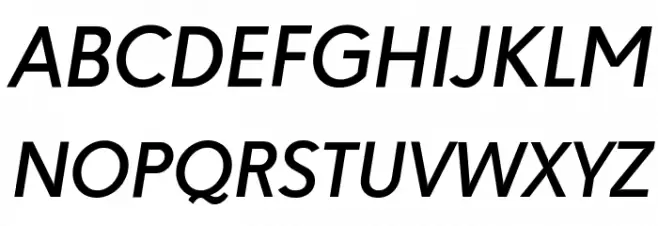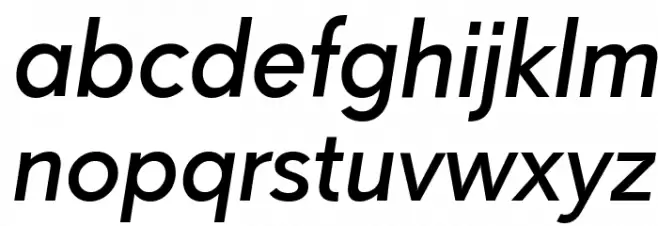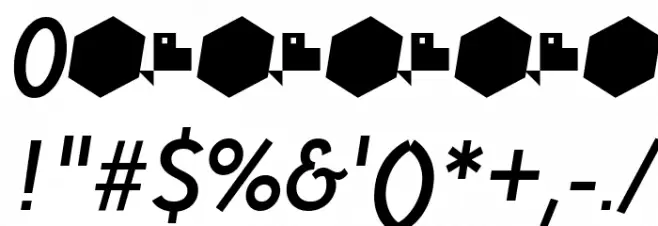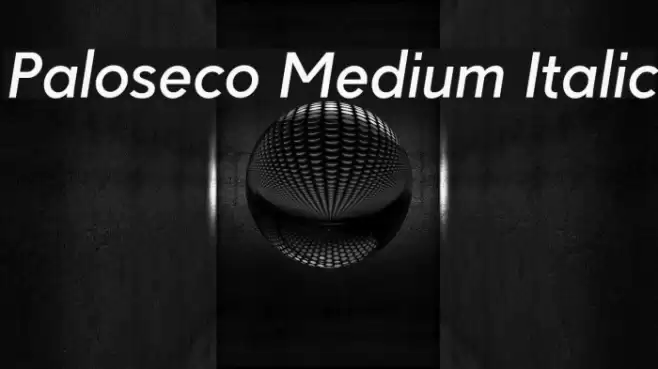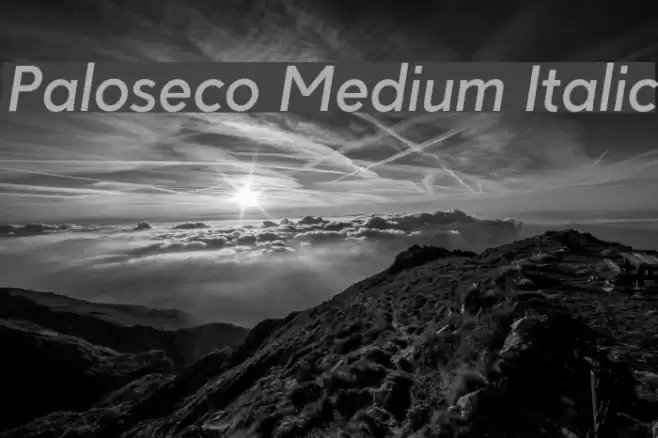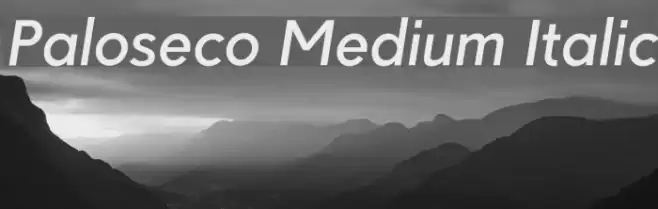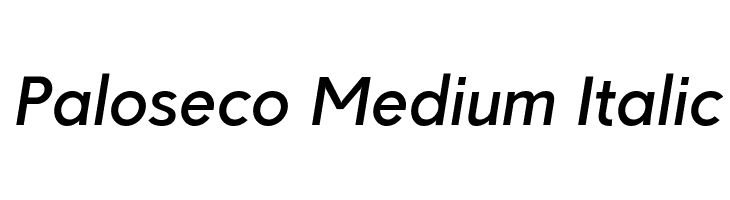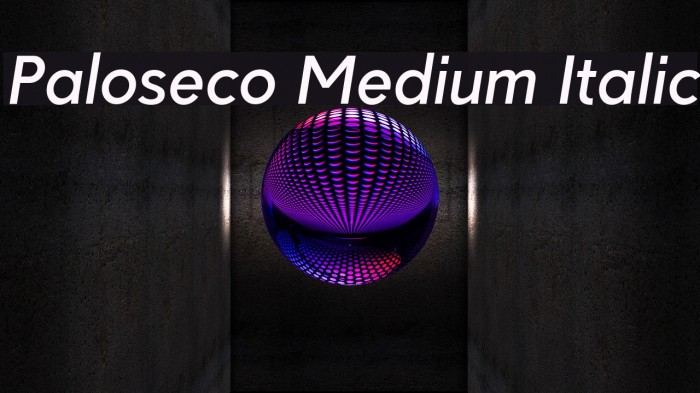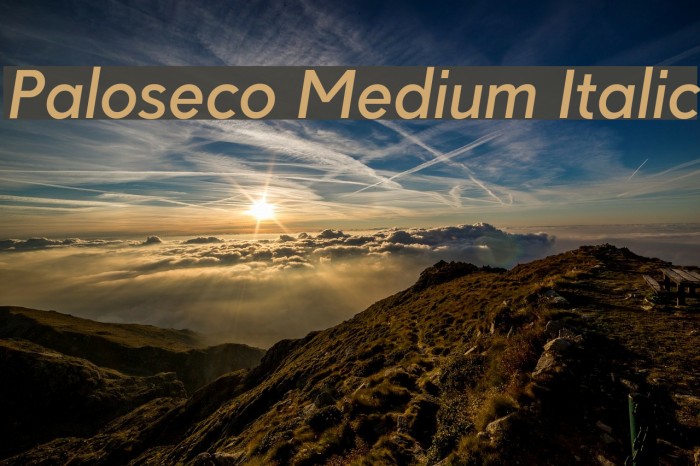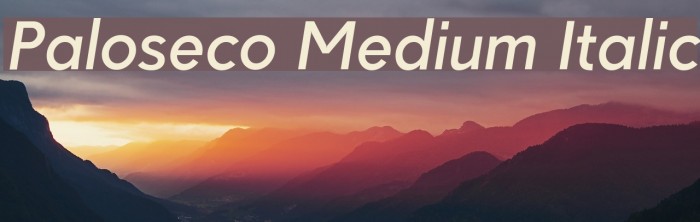
Paloseco Medium Italic
This font features a sleek, modern design with a subtle italic slant, giving it a dynamic and forward-moving appearance. The characters are clean and well-defined, with a consistent medium weight that provides a balanced look. The uppercase and lowercase letters maintain a harmonious proportion, while the numerals and special characters are crafted to match the overall style. The font's smooth curves and straight lines create a professional and contemporary feel, making it versatile for various design applications.
A modern, medium-weight italic font with clean lines and a dynamic style.
- Proposed Projects: Ideal for branding, advertising, and editorial design projects that require a modern and professional touch.